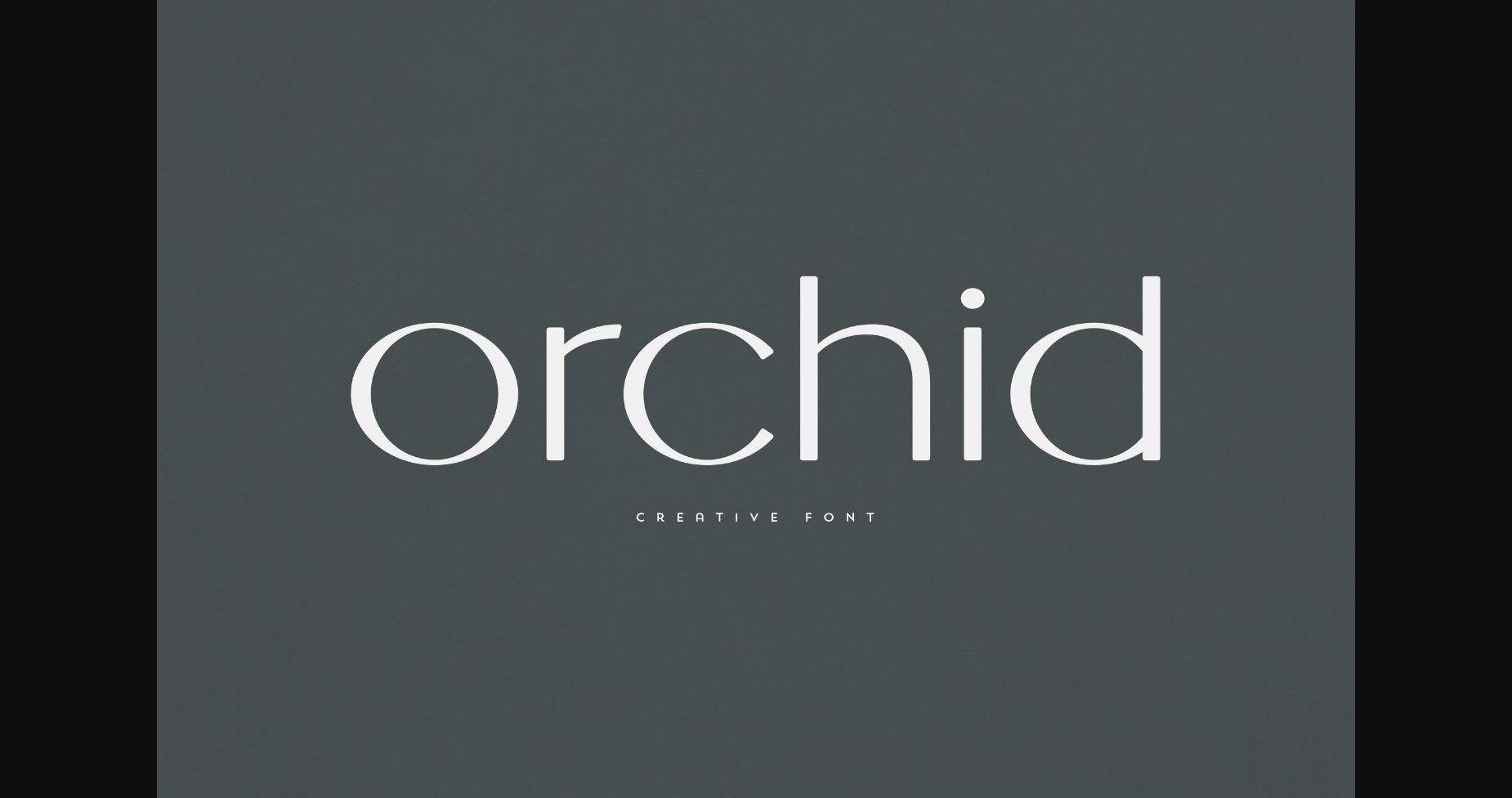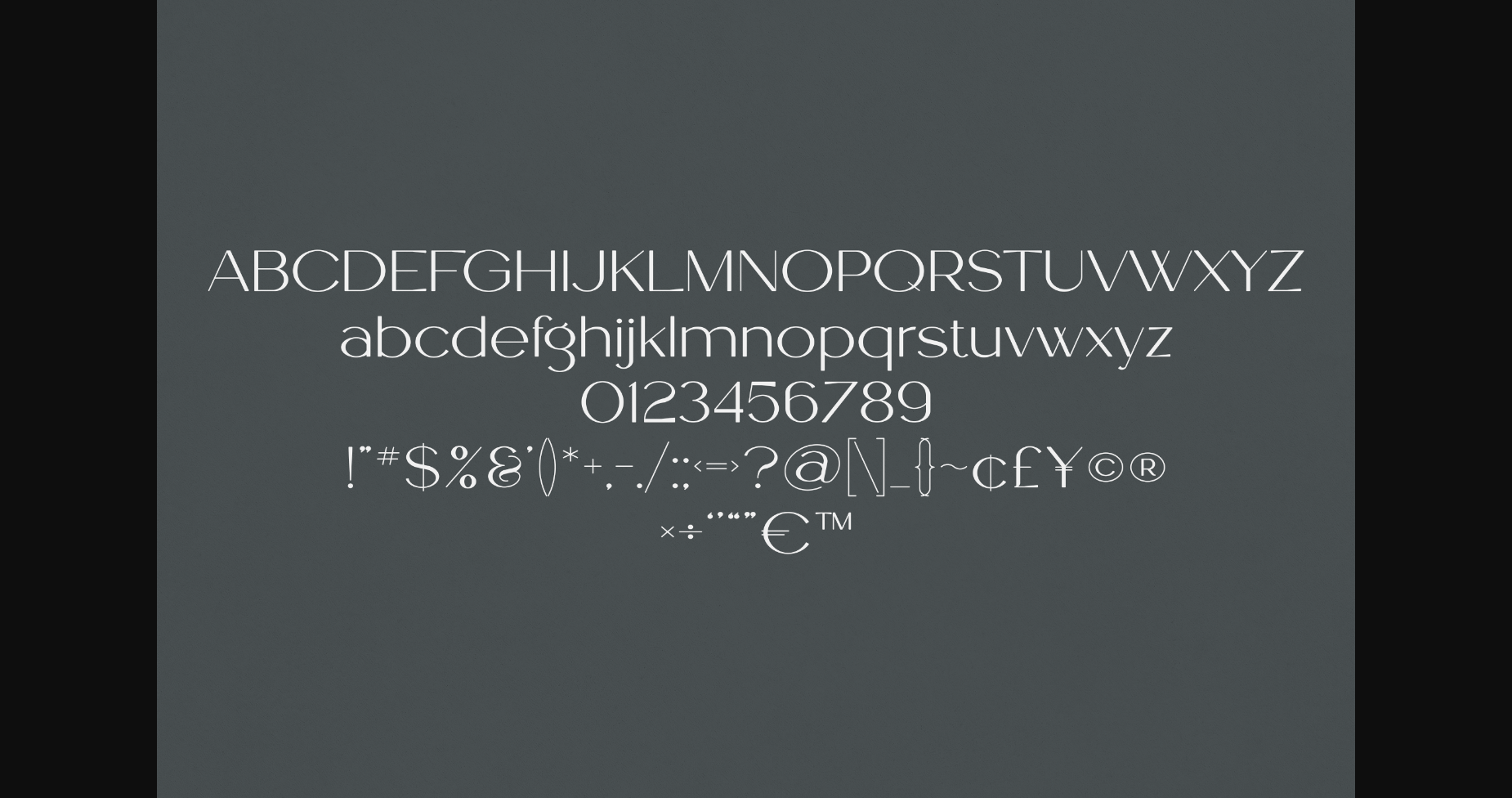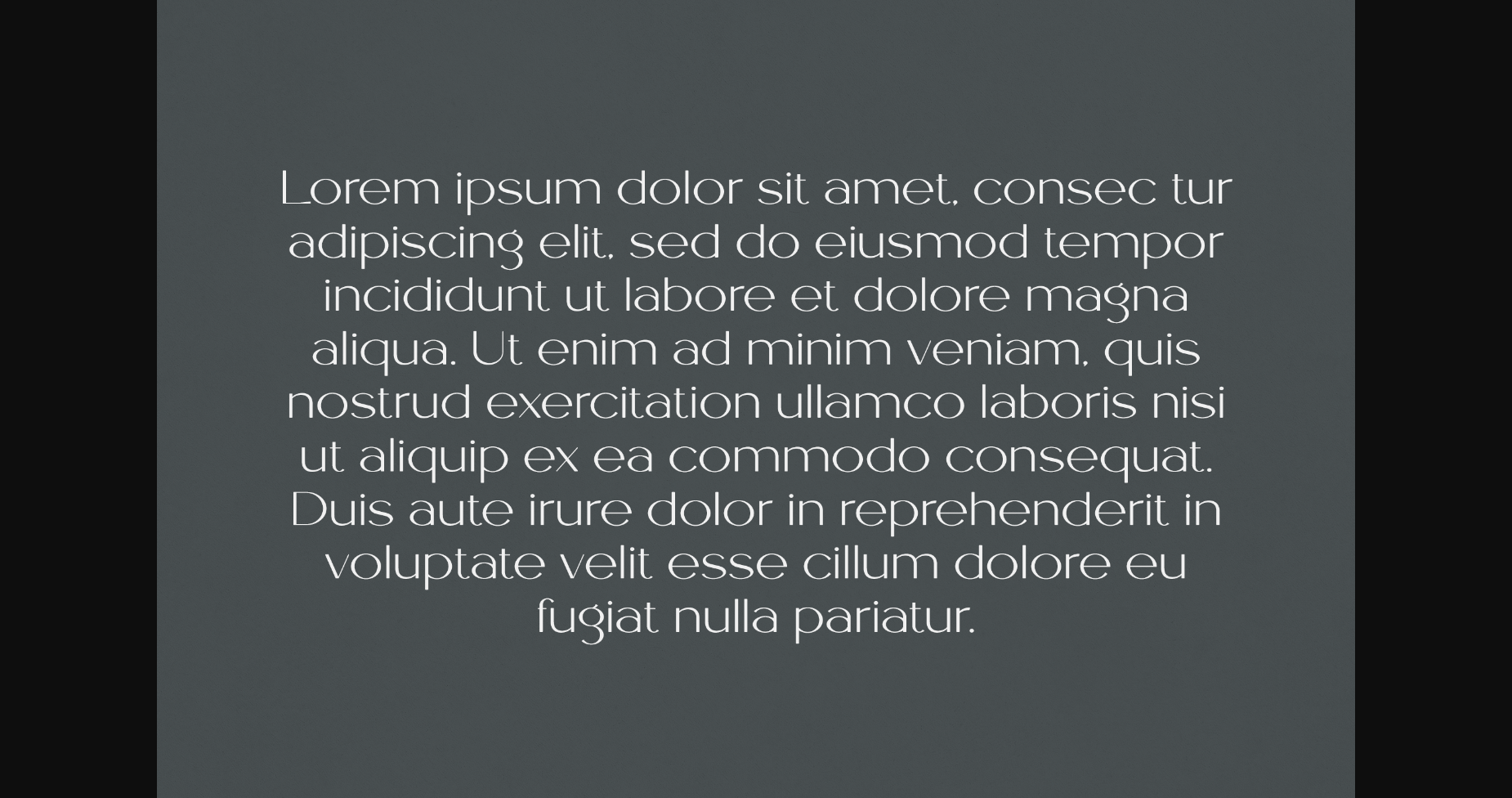
About Orchid Font
Orchid is an elegant and versatile font that will make your typography truly unique! It will enchant every logo, branding, headline, or plain text!